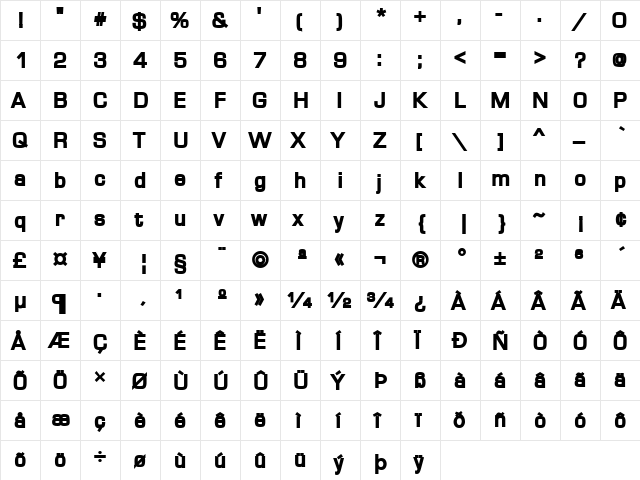
Waukegan LDO Black Regular
| Foundry | LDO Fonts |
| Designer | Luke Owens |
Design Context for Waukegan LDO Black Typeface
Waukegan LDO Black offers clean, dependable letterforms without strong stylistic allegiance, making it a practical choice for designers who need flexibility.